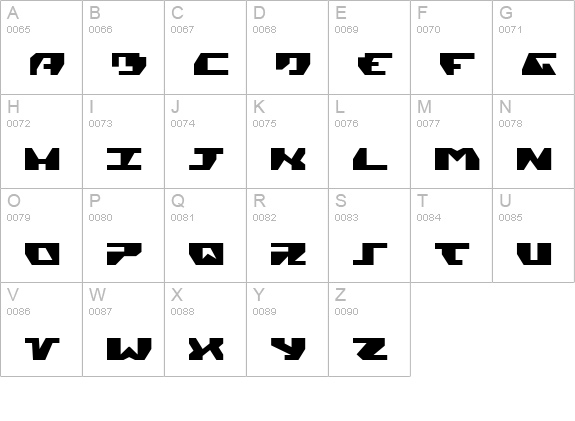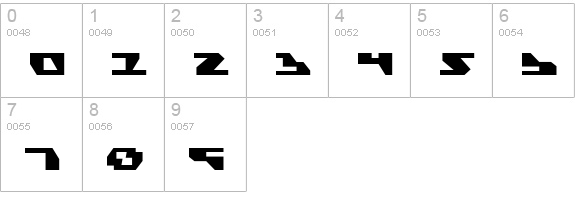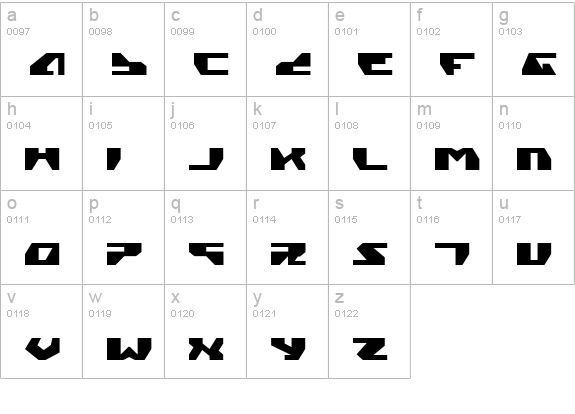
Gyrfalcon Expanded is a distinctive, extended-width variant in the Gyrfalcon typeface family \xE2\x80\x94 well suited to design and typography projects.
Gyrfalcon Expanded font is a striking and modern typeface that exudes elegance and sophistication. With its elongated and sleek letterforms, this font is perfect for adding a touch of refinement to any design project. The clean lines and balanced proportions of Gyrfalcon Expanded make it versatile and suitable for a wide range of applications, from branding to editorial design. What sets Gyrfalcon Expanded apart is its unique blend of classic elegance and contemporary flair. The font is meticulously crafted to ensure legibility and readability, making it a reliable choice for both print and digital media. Whether you're working on a logo, poster, website, or any other creative project, Gyrfalcon Expanded will elevate your design with its refined aesthetic. And the best part? Gyrfalcon Expanded font is available for free download at FontsMarket.com. Now you can access this premium font without breaking the bank, allowing you to bring your creative visions to life without any barriers. Don't miss out on this opportunity to enhance your designs with the timeless elegance of Gyrfalcon Expanded font. Download it today and take your projects to the next level!